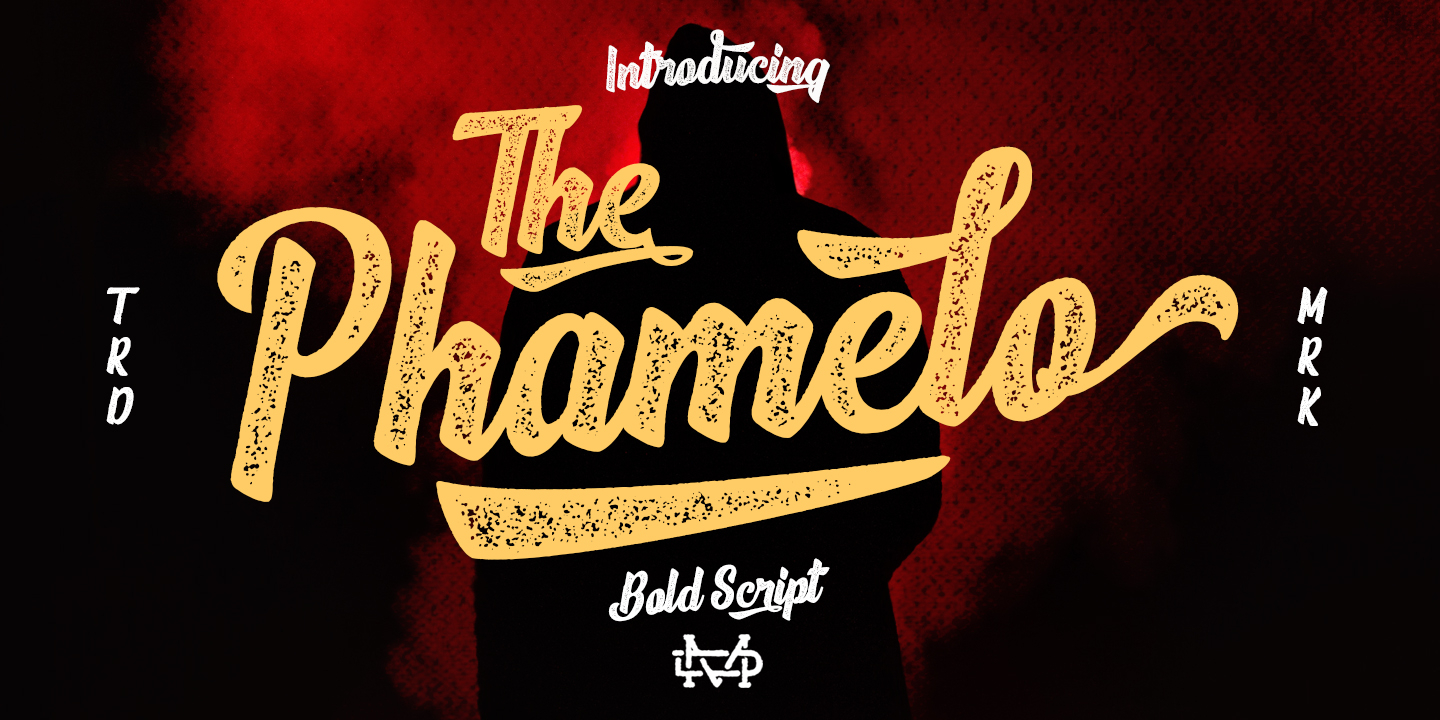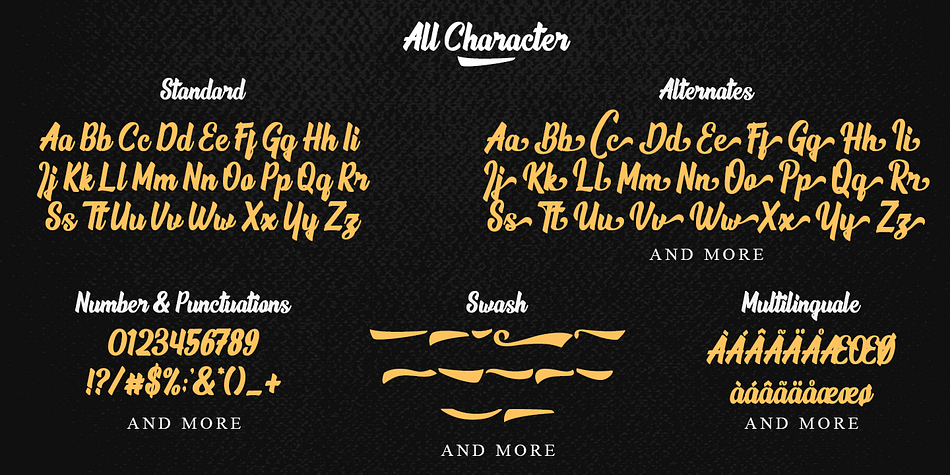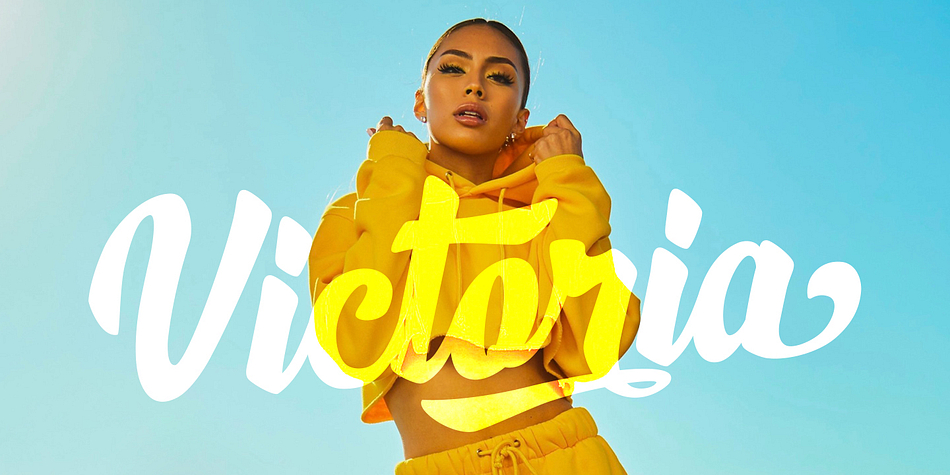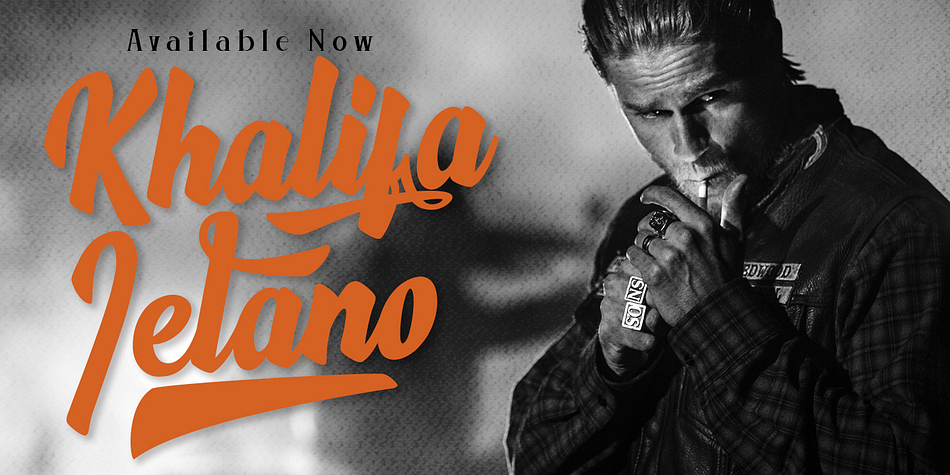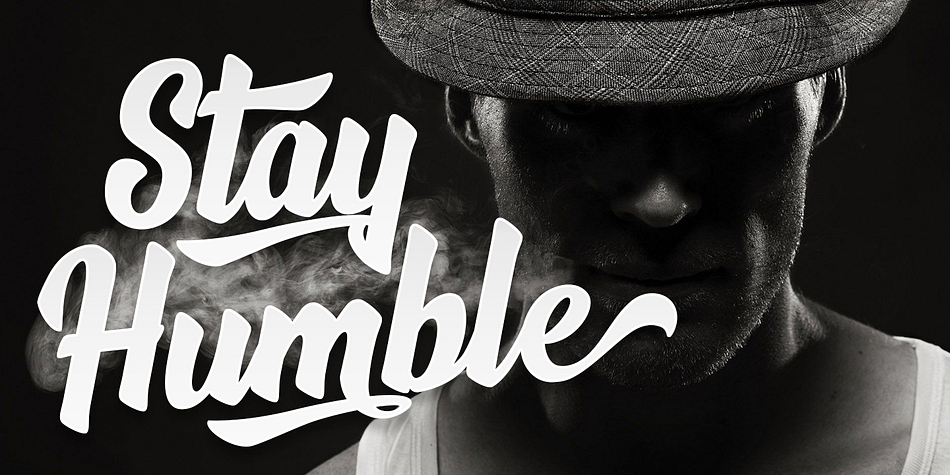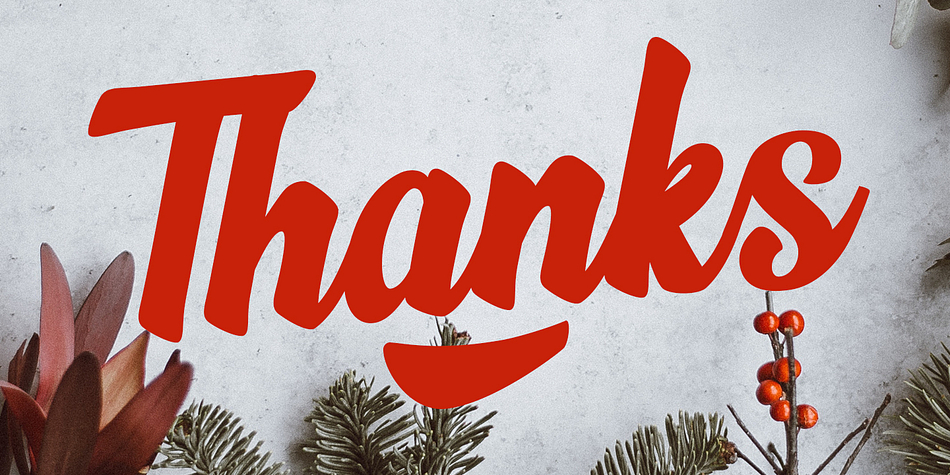
Designed by Suandana Ipandemade, The Phamelo Script is a brush script and dingbat font family. This typeface has three styles and was published by madeDeduk.
The Phamelo is a bold script comes with clean and rough version and this perfect for all your designs project, event and more.